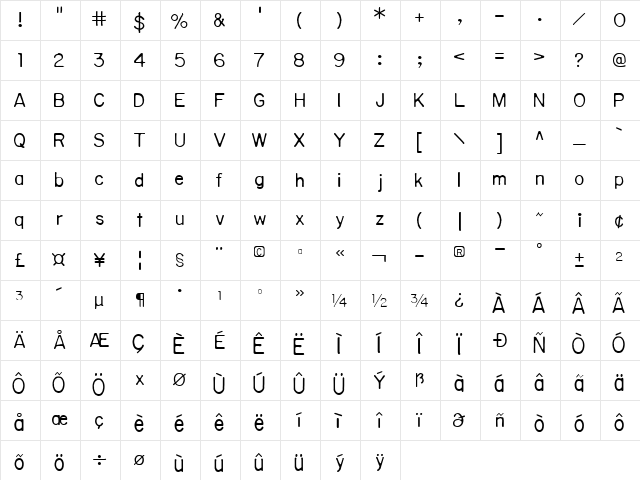
Sublime Light
| Foundry | CONIGLIO USA |
Design Context for Sublime Typeface
Sublime takes a measured approach to typography — its balanced proportions and neutral character make it a reliable workhorse for both digital and print work. The delicate stroke weight brings airiness and refinement to layouts.
Pro Tip: Pair Sublime with a font of contrasting weight or personality to build a more expressive typographic hierarchy.